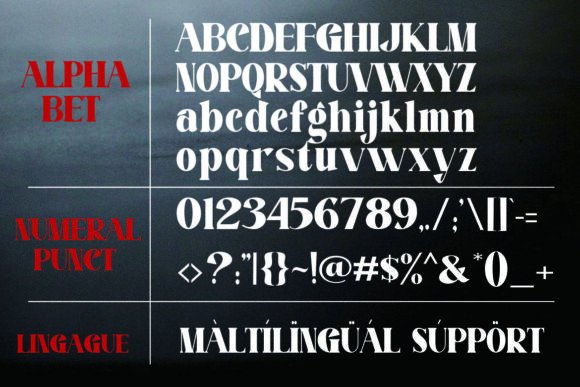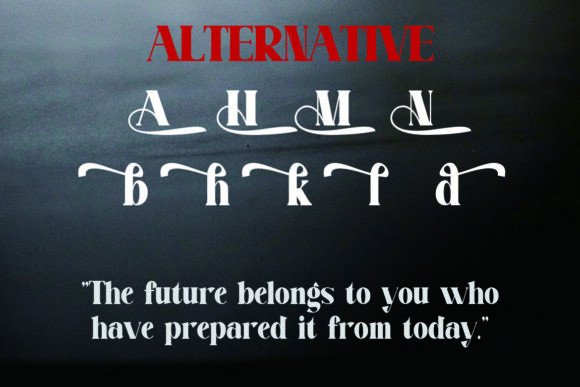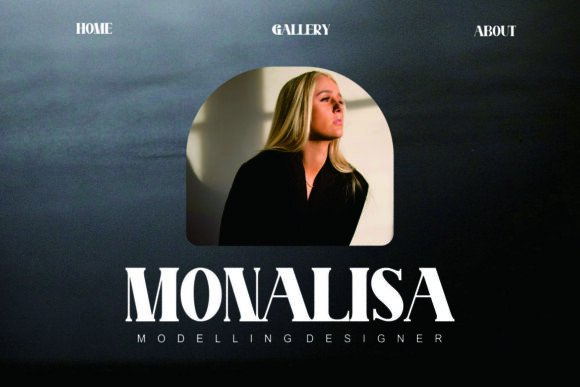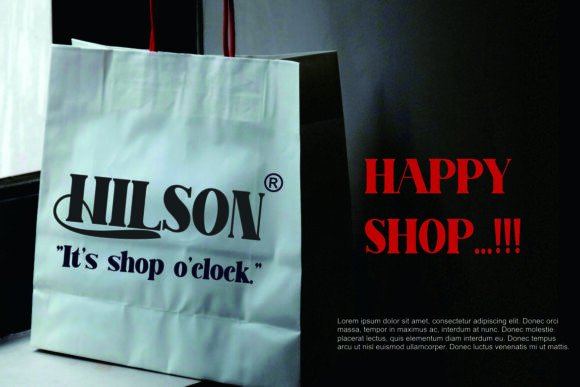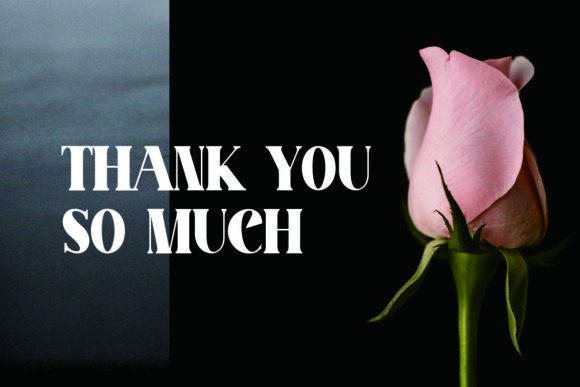
Introducing Artagah Font: Elevate Your Designs with Elegance and Boldness
Are you on the hunt for a font that exudes elegance, sophistication, and versatility? Look no further than Artagah Font! This stunning serif font is designed to capture the hearts of designers and crafters alike with its unique blend of boldness and refinement. In this article, we’ll dive into the world of Artagah Font, exploring its features, uses, and the endless creative possibilities it offers.
What is Artagah Font?
Artagah Font is an elegant and bold serif font that is sure to make a statement in any design project. Its classic serif lines and contemporary flair make it an incredibly versatile typeface, suitable for a wide range of applications. Whether you’re creating wedding invitations, stationery art, social media posts, or any other visual content, Artagah Font is the perfect choice.
Key Features of Artagah Font
• Elegant and Bold: Artagah Font boasts a unique combination of elegance and boldness, making it perfect for designs that require a touch of sophistication.
• Serif Style: The font’s classic serif lines add a level of refinement and luxury to any design.
• Versatile: Artagah Font is incredibly versatile, making it suitable for a wide range of applications, from wedding invitations to social media posts.
• Easy to Read: The font’s clear and legible design ensures that your message is conveyed with ease, even at smaller font sizes.
Creative Uses for Artagah Font
Artagah Font is a designer’s dream come true, offering endless creative possibilities. Here are just a few ideas to get you started:
• Wedding Invitations: Create stunning wedding invitations that set the tone for a luxurious and unforgettable celebration.
• Stationery Art: Add a touch of elegance to your stationery art, including greeting cards, thank-you cards, and more.
• Social Media Posts: Make your social media posts stand out with Artagah Font’s bold and eye-catching style.
• Branding and Packaging: Use Artagah Font to create a cohesive brand identity that exudes sophistication and luxury.
Why Choose Artagah Font?
With so many fonts available, why choose Artagah Font? Here are just a few reasons why designers and crafters are falling in love with this stunning typeface:
• Unique Style: Artagah Font offers a unique blend of elegance and boldness that’s hard to find in other fonts.
• High-Quality Design: The font is designed with precision and attention to detail, ensuring a high-quality finish.
In conclusion, Artagah Font is a game-changer for designers and crafters looking to elevate their designs with elegance and boldness. Its unique style, versatility, and high-quality design make it the perfect choice for a wide range of applications. Whether you’re creating wedding invitations, stationery art, social media posts, or any other visual content, Artagah Font is sure to impress. So why wait? Fall in love with Artagah Font and take your designs to the next level!